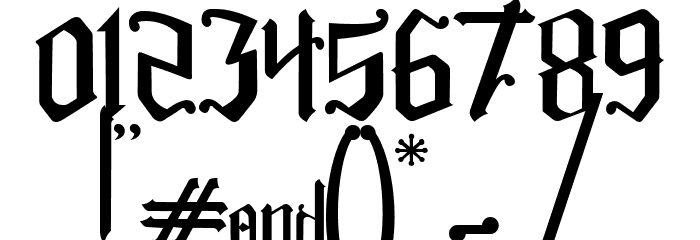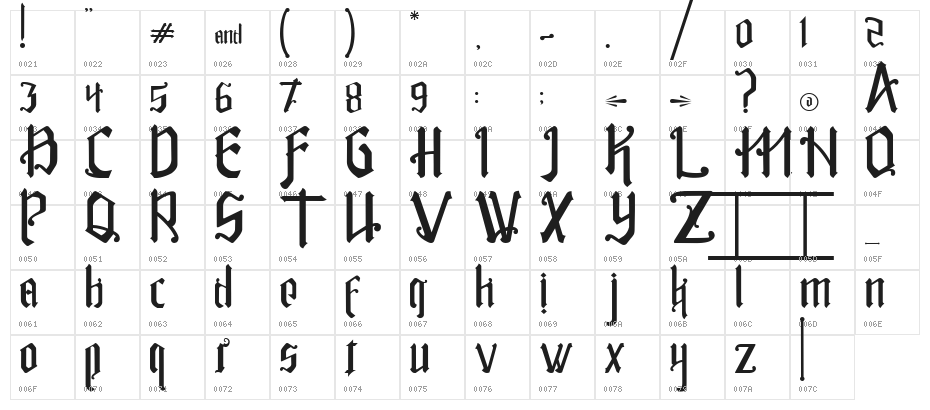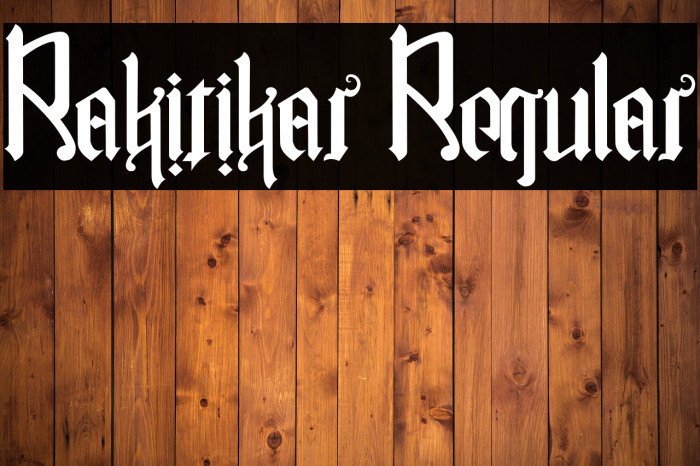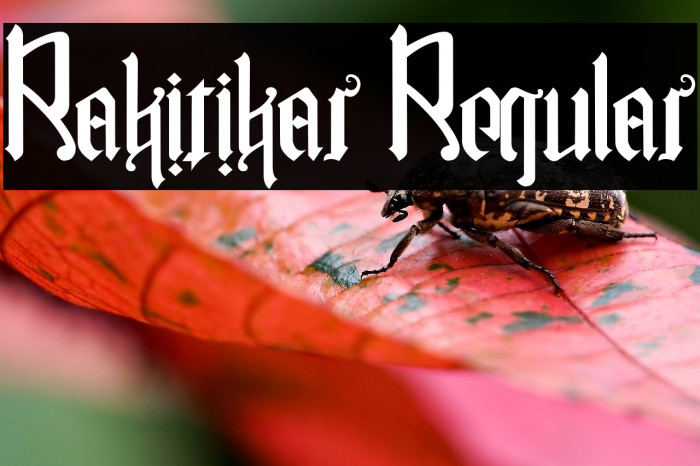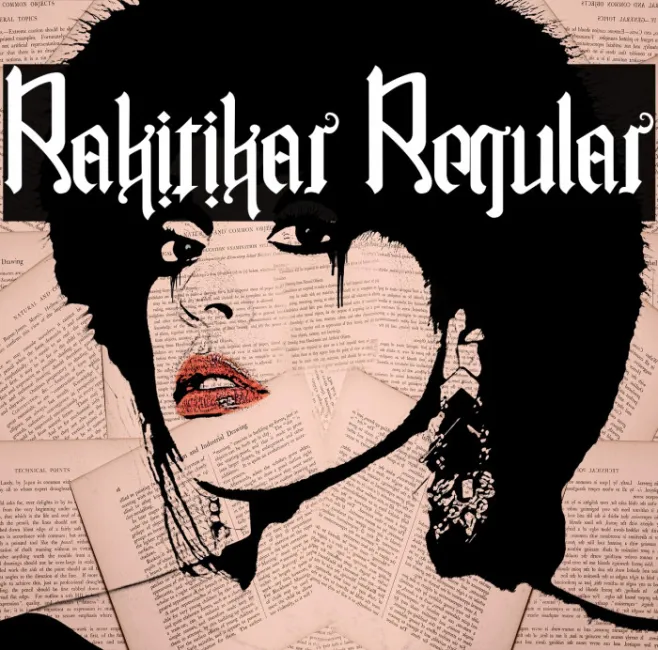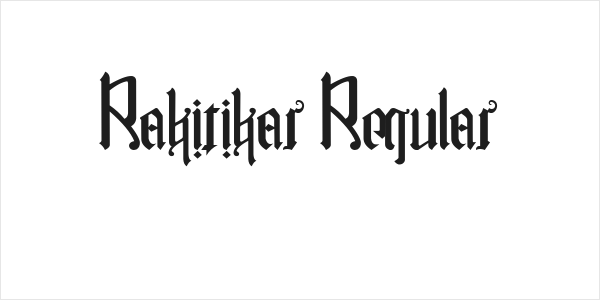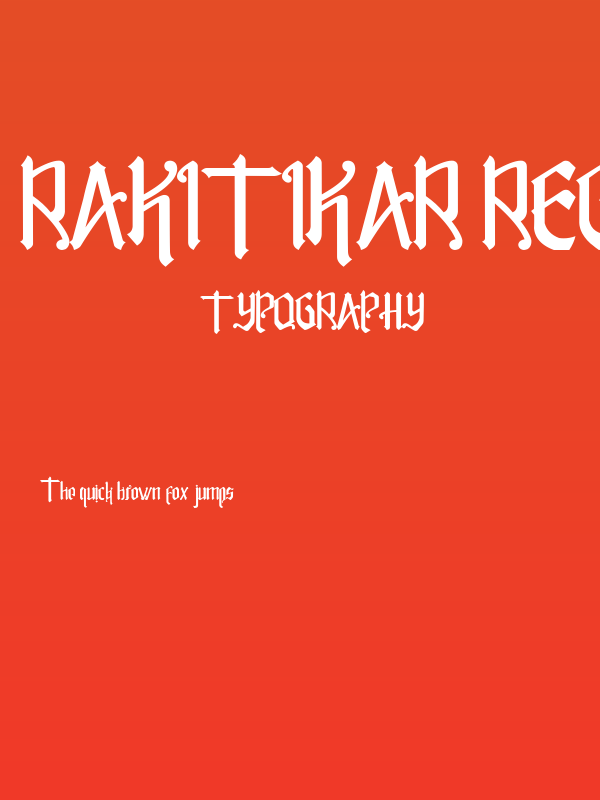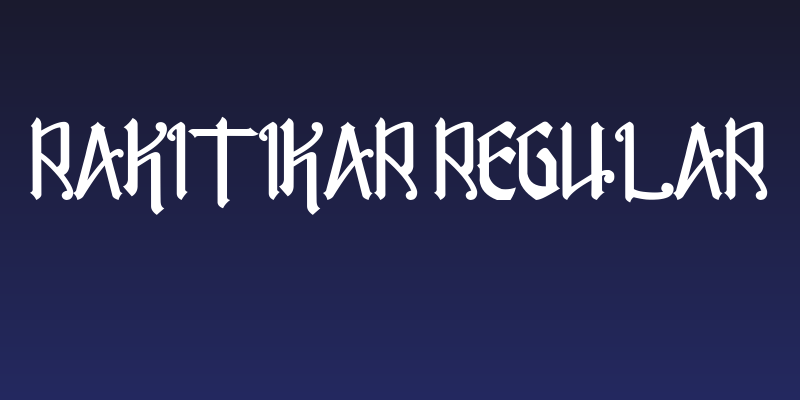
Rakitikar Regular Font
Rakitikar Regular Description
This font exhibits a striking and intricate design, reminiscent of traditional blackletter styles. The characters are ornate, with sharp angles and elaborate flourishes that give it a gothic and medieval appearance. The uppercase letters are particularly bold and commanding, while the lowercase letters maintain the same decorative style, ensuring consistency throughout. The numerals and special characters follow the same aesthetic, making them stand out with their unique and artistic flair. This font is ideal for projects that require a historical or dramatic touch, offering a sense of elegance and sophistication.
| Proposed Projects | Suitable for historical documents, gothic-themed designs, book covers, posters, and branding that requires a dramatic and elegant touch. |